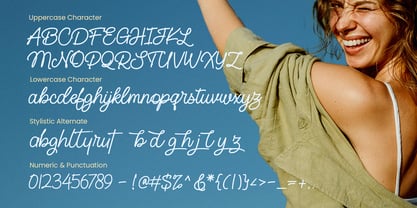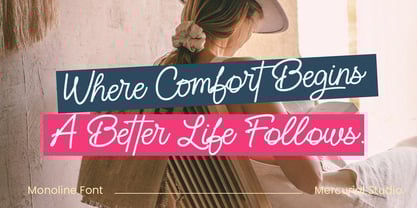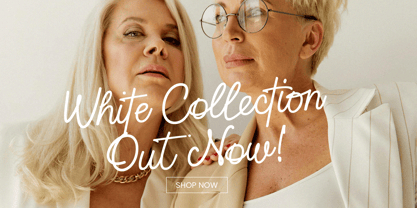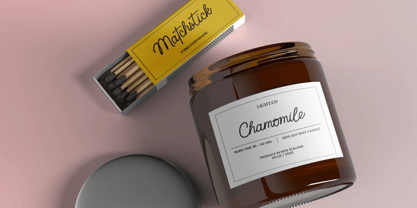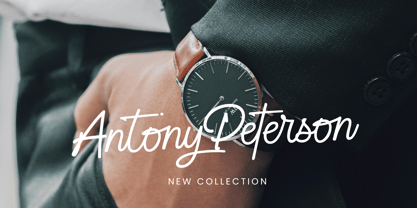
Cotieleny
Die Schriftfamilie Cotieleny wurde von Muksalmina, Muchsal Mercurial entworfen und von Mercurial veröffentlicht. Cotieleny enthält 1 Stile.
Hello everyone, I would like to introduce Cotieleny a modern and stylish monoline handwritten font.
Cotieleny can be used for a variety of projects such as branding, labels, photography, invitations, stationery, wedding designs, social media posts, advertising, product packaging, product design, and more.